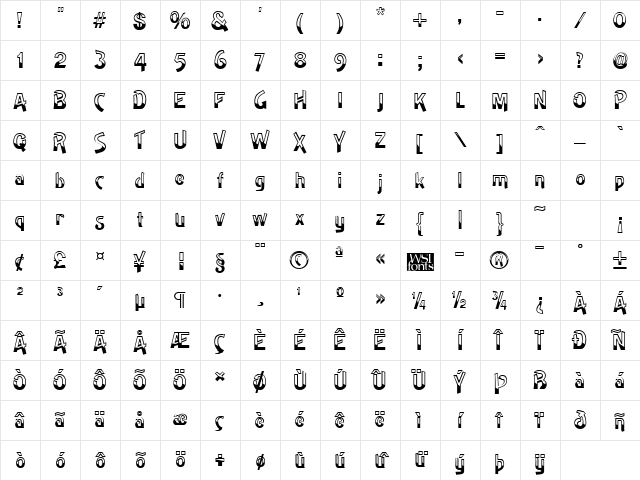
Complete HighNoon Regular glyph index. Displaying only characters natively supported by HighNoon Regular font.
HighNoon is a composed and adaptable typeface that performs quietly and consistently across a wide range of design contexts.